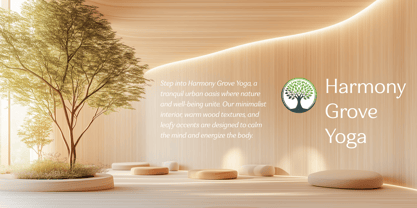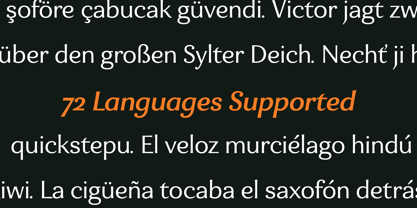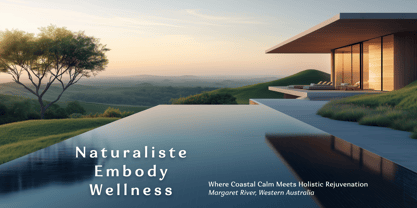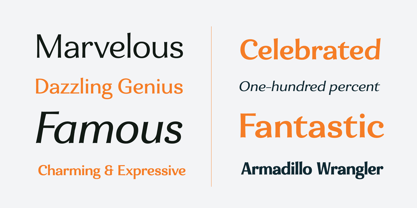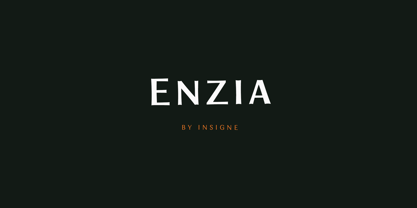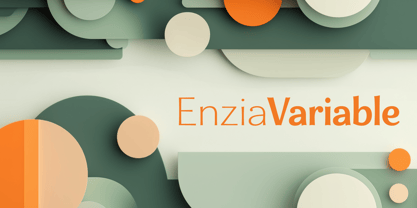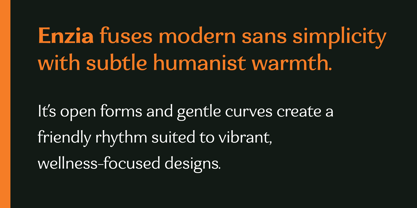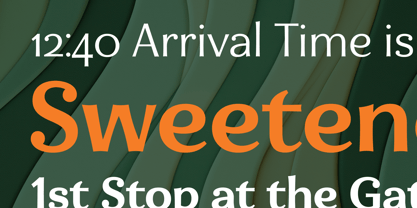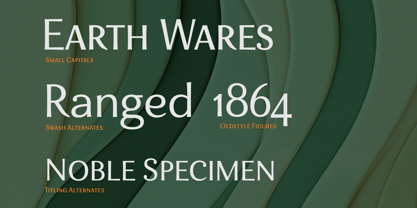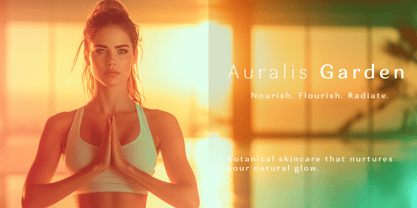
Eniza Variable
by insigne
The Eniza Variable Font Family was designed by Jeremy Dooley and published by insigne. Eniza Variable contains 1 styles. More about this family
Meet Enzia Variable: Where Energy Flows Through Every Letter
Imagine a variable typeface that moves effortlessly between tradition and innovation—that’s Enzia. Not just another sans serif, Enzia is a masterful fusion of strength and grace: flared stems that rise like pillars, bulbous terminals that exude optimism, and open counters that breathe life into every character. Each letter feels alive, ready to step forward and speak for your brand.
Born for the Wellness Revolution
Enzia Variable flexes with your project’s needs—from bold, dynamic headlines to subtle, silken body text. With its nine weights and three widths and an italic (all adjustable in real time, thanks to variable font technology), you can fine-tune every detail to capture the spirit of modern wellbeing. Think fitness studios, kombucha bottles, and protein bar packaging—Enzia shines wherever confidence and approachability intersect.
Where Enzia Excels
• Boutique Fitness Studios: Enzia’s flared vertical stems aren’t just pretty; they guide the eye, making your brand both strong and inviting.
• Packaging Design: Enzia pops off the shelf with its distinctive bulbous terminals, sparking curiosity and encouraging a closer look.
• Digital Platforms: In an age of online noise, Enzia’s crisp clarity and friendly presence cut through effortlessly.
Technical Poetry in Motion
Enzia’s variable font format is a testament to its versatility. Need a bolder look? Dial it up. Craving a subtler approach? Dial it back. Those rounded terminals create a natural rhythm that keeps readers engaged, while the flared stems lend an understated sophistication. Enzia isn’t just a font—it’s a living design tool for your brand.
Ready to Transform Your Brand?
Picture your project humming with Enzia’s signature energy. Whether you’re crafting a bold gym logo that commands attention or an elegant wellness app that inspires trust, Enzia Variable brings the perfect mix of power, warmth, and adaptability.